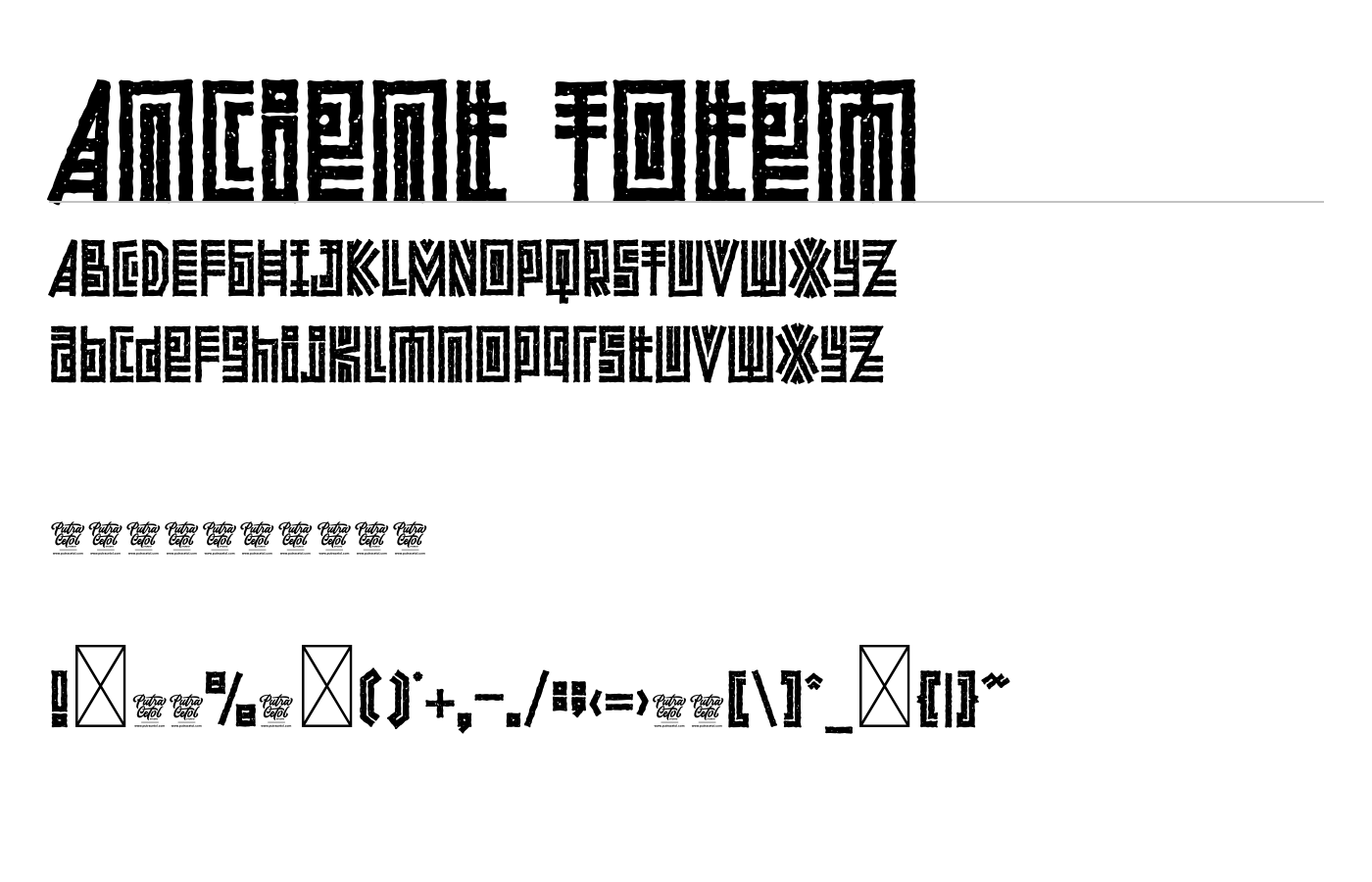
Ancient Totem is a bold, decorative display font that draws inspiration from tribal and primitive art forms, featuring a textured, hand-carved appearance with strong vertical and geometric lines. Its uppercase and lowercase letters have a unique, blocky structure with intricate internal details, giving it an ancient, rugged feel perfect for projects seeking a distinctive and culturally evocative look. This font works especially well for posters, branding, and packaging that aim to convey tradition, mystery, or a handcrafted vibe.
Ancient Totem Font
About Ancient Totem Font
| Font family | Ancient Totem Font |